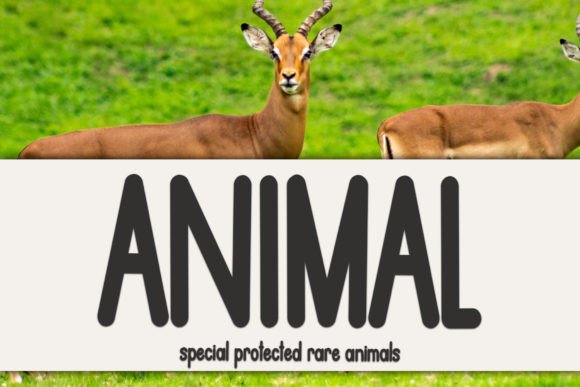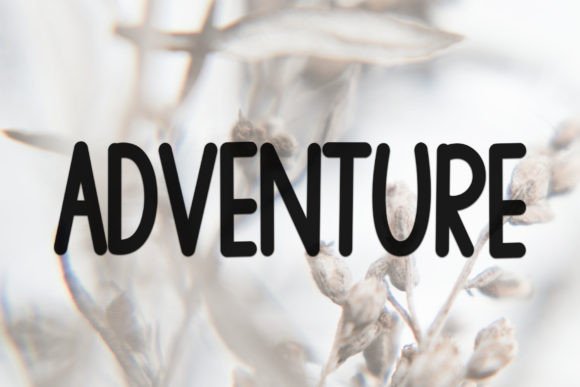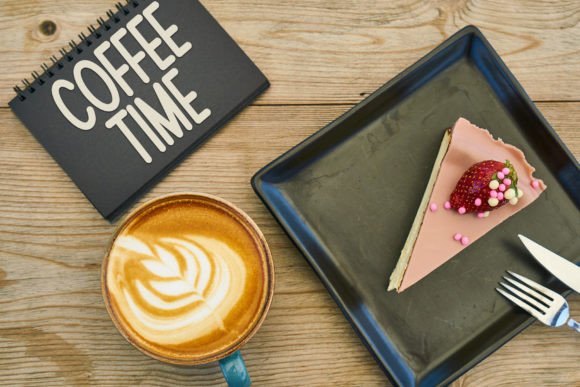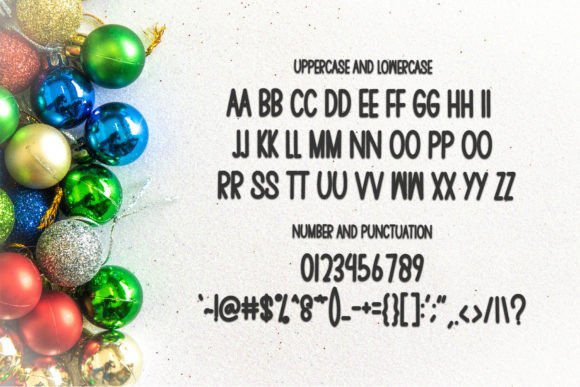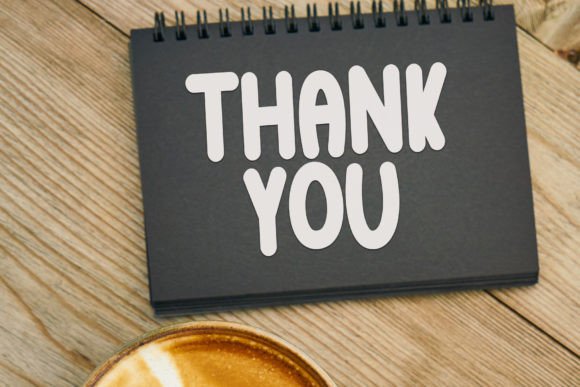
Introducing Cluster Font: The Perfect Blend of Warmth and Whimsy
Are you tired of using the same old fonts for your personal projects, invitations, and social media graphics? Look no further than Cluster Font, a casual handwritten font that exudes warmth and friendliness. With its rounded, playful strokes, Cluster Font gives a relaxed and approachable feel that’s perfect for designers and crafters looking to add a personal touch to their work.
The Charm of Cluster Font
Cluster Font’s charming, hand-drawn aesthetic adds a delightful, whimsical touch to any design. The font’s unique character lies in its imperfect, hand-crafted strokes that give it a distinctly human feel. This makes it ideal for projects where you want to convey a sense of personality and approachability. Whether you’re designing a birthday invitation, a social media graphic, or a personal blog, Cluster Font is sure to make your work stand out.
Key Features of Cluster Font
- Rounded and Playful Strokes: Cluster Font’s rounded strokes give it a soft and friendly feel that’s perfect for designs that require a personal touch.
- Hand-Drawn Aesthetic: The font’s hand-drawn aesthetic adds a whimsical touch to any design, making it perfect for projects that require a bit of personality.
- Highly Legible: Despite its casual nature, Cluster Font is highly legible, making it perfect for use in a variety of design applications.
- Versatile: Cluster Font is versatile and can be used for a wide range of design projects, from personal invitations to social media graphics.
Uses of Cluster Font
Cluster Font is perfect for a wide range of design projects, including:
- Personal Invitations: Use Cluster Font to create beautiful and unique invitations for special occasions like birthdays, weddings, and baby showers.
- Social Media Graphics: Add a personal touch to your social media graphics with Cluster Font. It’s perfect for creating engaging and shareable content.
- Blogging: Use Cluster Font to add a personal touch to your blog posts. It’s perfect for bloggers who want to convey a sense of warmth and approachability.
- Crafting and DIY Projects: Cluster Font is perfect for crafters and DIY enthusiasts who want to add a personal touch to their projects.
Tips for Using Cluster Font
Here are some tips for using Cluster Font effectively in your designs:
- Pair it with Other Fonts: Cluster Font pairs well with other fonts, especially sans-serif fonts. Try pairing it with a clean sans-serif font to create a beautiful contrast.
- Use it in Large Sizes: Cluster Font is perfect for use in large sizes, especially for headings and titles.
- Experiment with Colors: Cluster Font looks great in a variety of colors. Experiment with different colors to find the one that works best for your design.
Cluster Font is a beautiful and versatile font that’s perfect for designers and crafters looking to add a personal touch to their work. With its rounded, playful strokes and charming, hand-drawn aesthetic, Cluster Font is sure to make your designs stand out. Whether you’re creating personal invitations, social media graphics, or blog posts, Cluster Font is the perfect choice.
Get Creative with Cluster Font